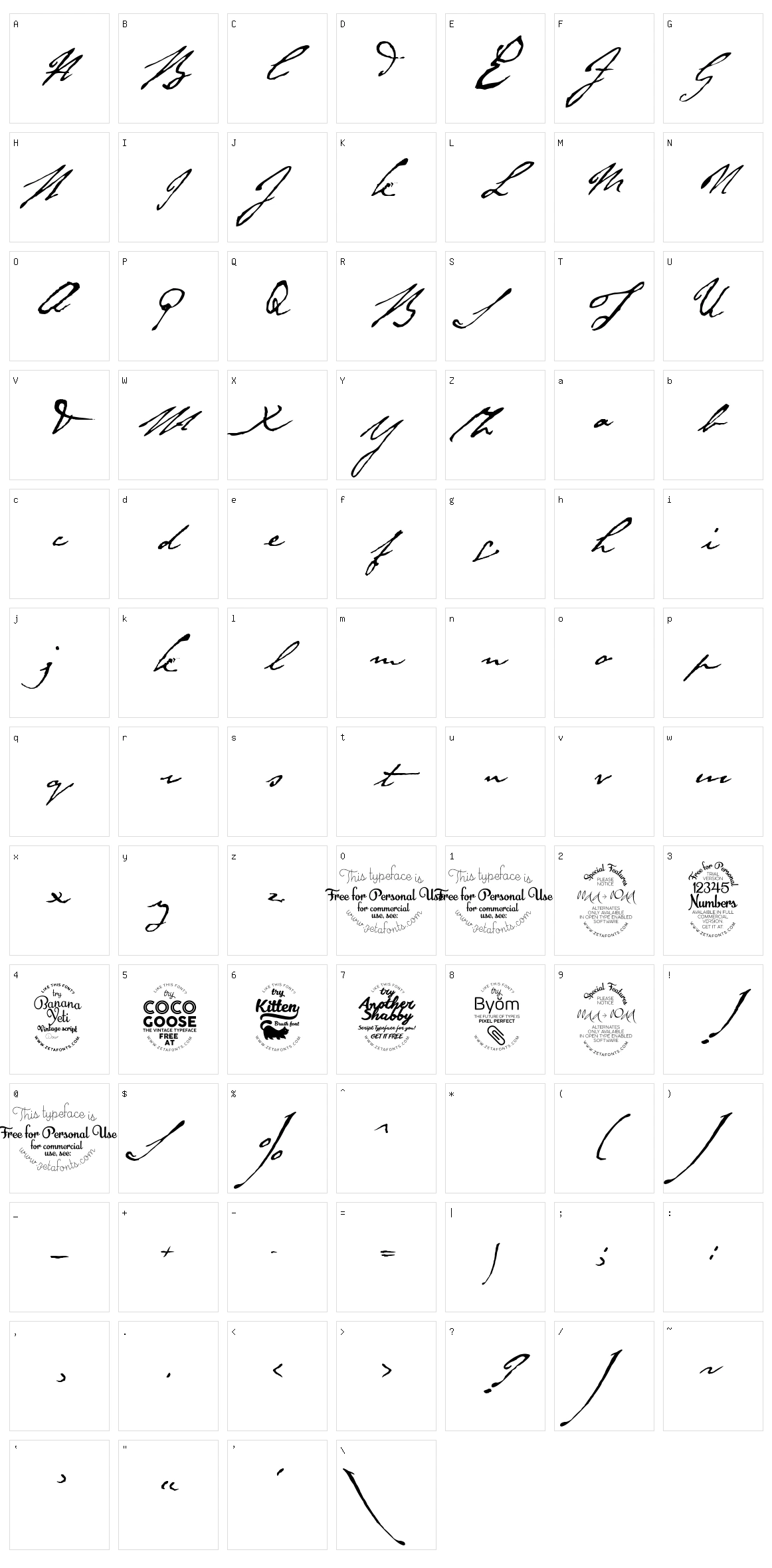
An handmade font created by the handwriting of Lord Byron. Byron is a unique contemporary font that imitates the style of handwriting and brush scripts.